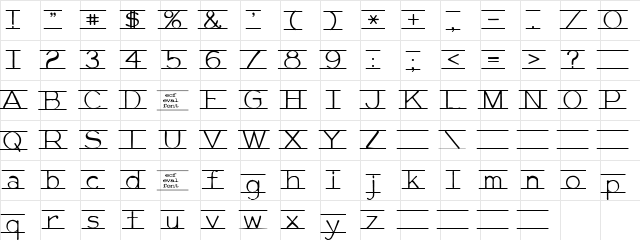
gifford (eval) Regular
Design Context for gifford (eval) Typeface
gifford (eval) takes a measured approach to typography — its balanced proportions and neutral character make it a reliable workhorse for both digital and print work.